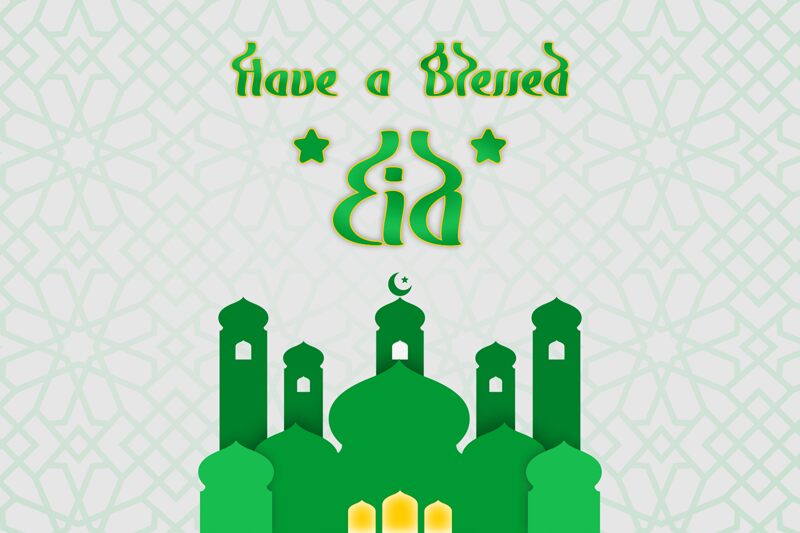
Eid Fitr, designed by Nuryanto Dwi, is a stunning foreign font that exudes elegance and sophistication. With its unique Arabic style, this semi-light typeface is perfect for a variety of projects ranging from formal invitations to branding materials. The semi-condensed width of Eid Fitr adds a touch of modernity to this classic font style, making it ideal for both print and digital designs. Use Eid Fitr to create memorable logos or add an exotic flair to your next editorial project. Its versatility and charm are sure to impress any audience.
Nuryanto Dwi